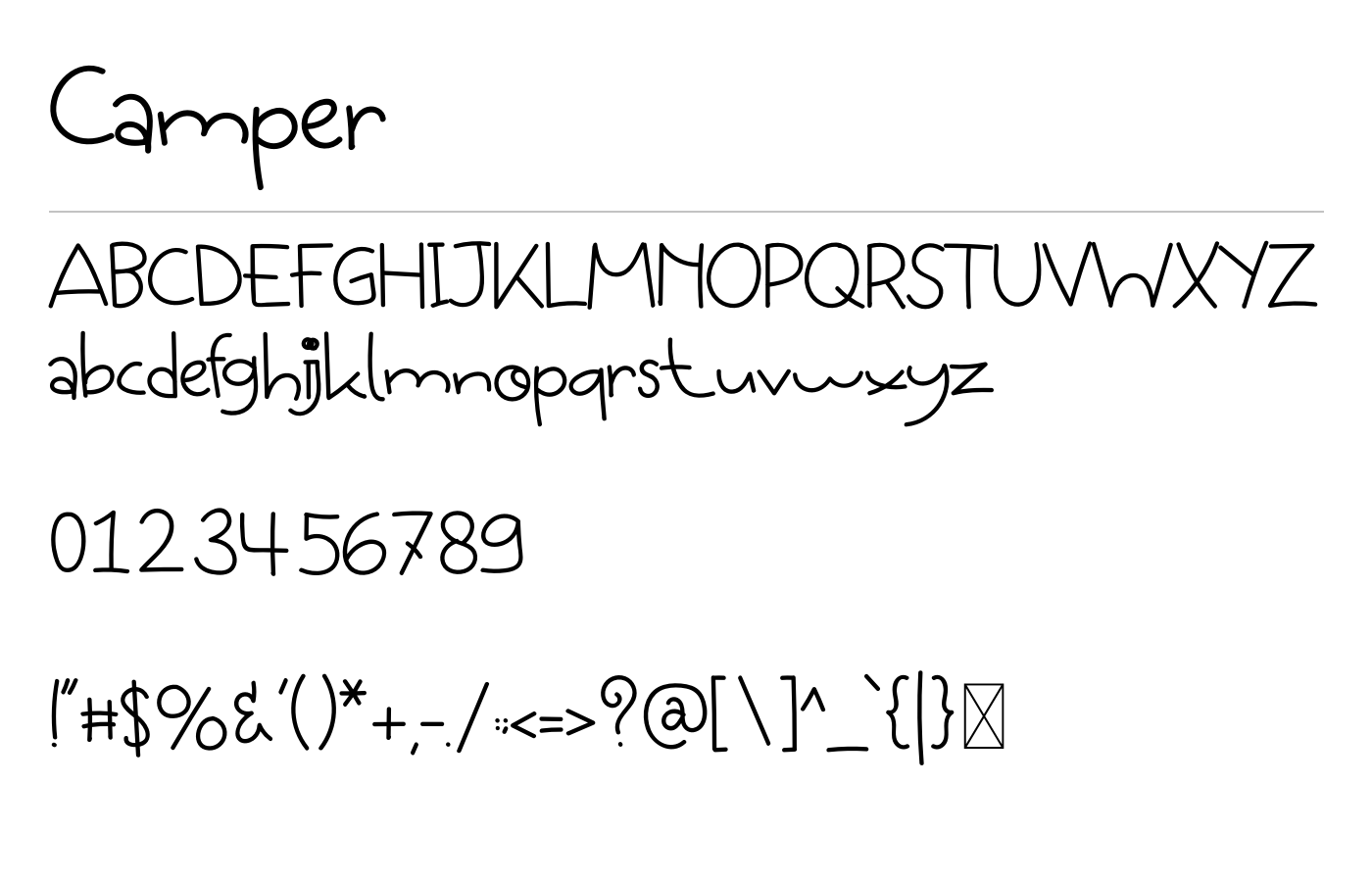
Camper is a playful, handwritten sans serif font with a casual and friendly vibe. Its thin strokes, rounded curves, and irregular shapes give it an informal, approachable feel, making it perfect for creative projects, invitations, and children’s materials. This font works well in settings where a personal, whimsical touch is desired, adding warmth and charm to logos, posters, and informal branding.
Camper Font
About Camper Font